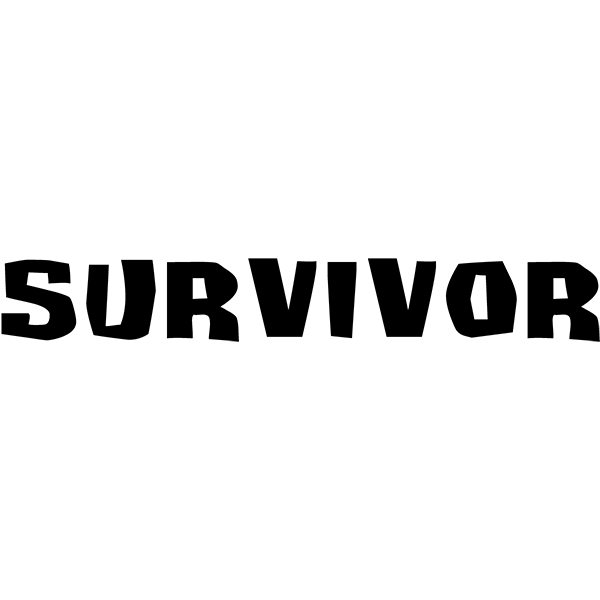
Survivor Fonts: How To Create The Perfect Font For Your Design Needs
The Benefits of Survivor Fonts
Survivor fonts are a type of typeface that is designed to withstand the test of time. They are designed to be timeless, and to remain effective for years to come. The goal of these fonts is to create a lasting impression that will remain relevant and useful for many years to come. Survivor fonts are typically used in design projects such as logos, websites, and other types of graphic design.
When you use survivor fonts, you can be sure that your design will stay relevant and attractive for the long haul. This means that you don't have to worry about your design becoming outdated or irrelevant. Survivor fonts are designed to be timeless, so they won't need to be updated or changed as technology and trends evolve. This means that your design will remain timeless and relevant regardless of the current trends.
Survivor fonts are also designed to be easily readable and legible. This is important for any design project, as legibility is key to creating an effective design. With survivor fonts, you can be sure that your design will be easily readable and legible no matter the circumstances. This ensures that your design can be clearly understood by those who view it.
Choosing the Right Survivor Font
When it comes to choosing the right survivor font for your design needs, there are a few things to consider. First, you want to make sure that the font is of a good quality. Look for fonts that are designed with clarity and legibility in mind. You want to make sure that the font is readable, even when viewed from a distance.
You also want to make sure that the font is versatile enough to fit any type of design project. Look for fonts that are designed to be used in various types of projects, such as logos, websites, and other graphics. Survivor fonts should also be able to be used in a variety of sizes and styles. This ensures that you can find the perfect font for your design needs.
Making the Most of Your Survivor Font
Once you have chosen the right survivor font for your design needs, you'll want to make sure that you make the most of it. This means that you want to make sure that you use the font in the most effective way possible. For example, you want to make sure that you use the font in a way that will make your design project stand out.
You also want to make sure that you use the font in a way that will make it look professional and attractive. This means that you want to make sure that the font is used in a way that will make your design look polished and well-crafted. Survivor fonts should be used in a way that will make your design look attractive and professional.
Finally, you want to make sure that you use the font in a way that will make it easy to read. This means that you want to make sure that the font is used in a way that will make it easy to read from a distance. Survivor fonts should be used in a way that will make them easy to read from a distance, so that your design can be easily understood.
Survivor fonts are an important type of font for any design project. They are designed to be timeless, legible, and versatile. When you choose the right survivor font for your design needs, you can be sure that your design will stay relevant and attractive for years to come. It is important to make sure that you choose the right font and use it in an effective way so that your design project can be a success.